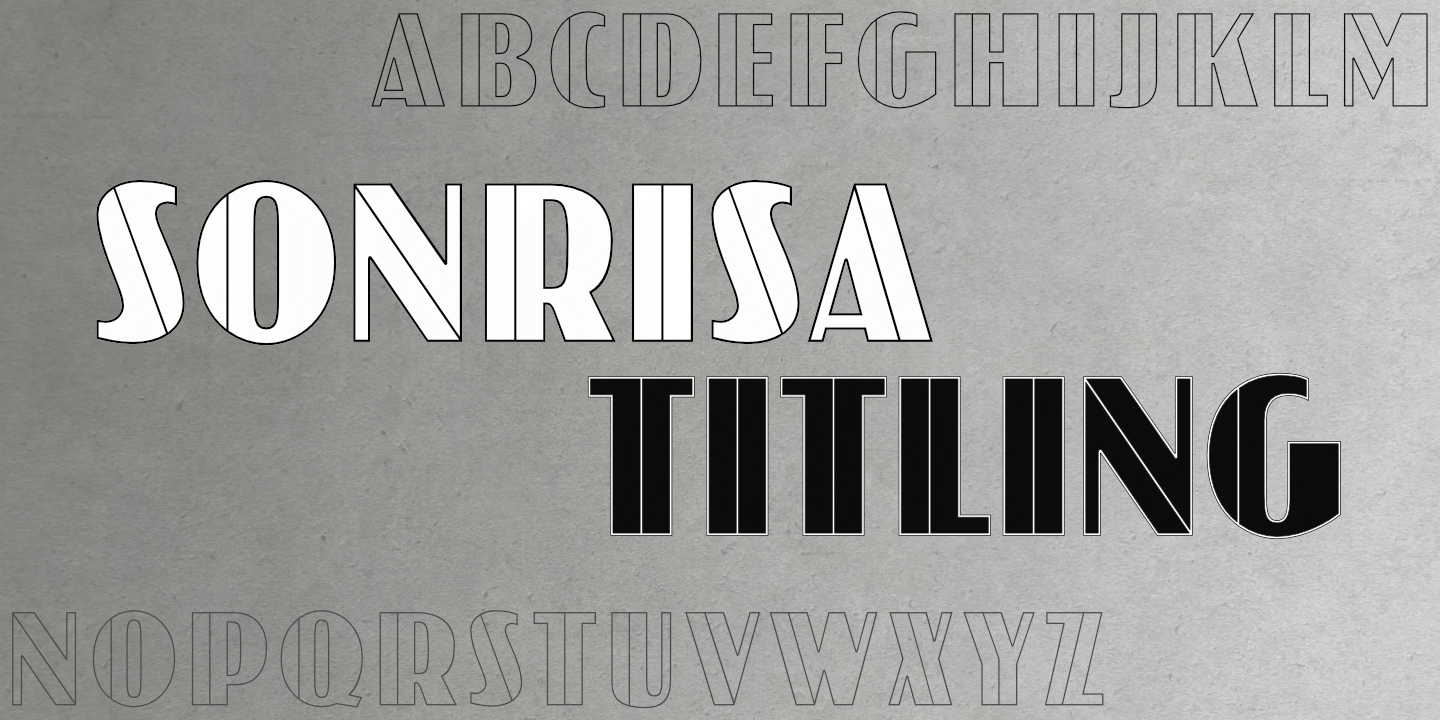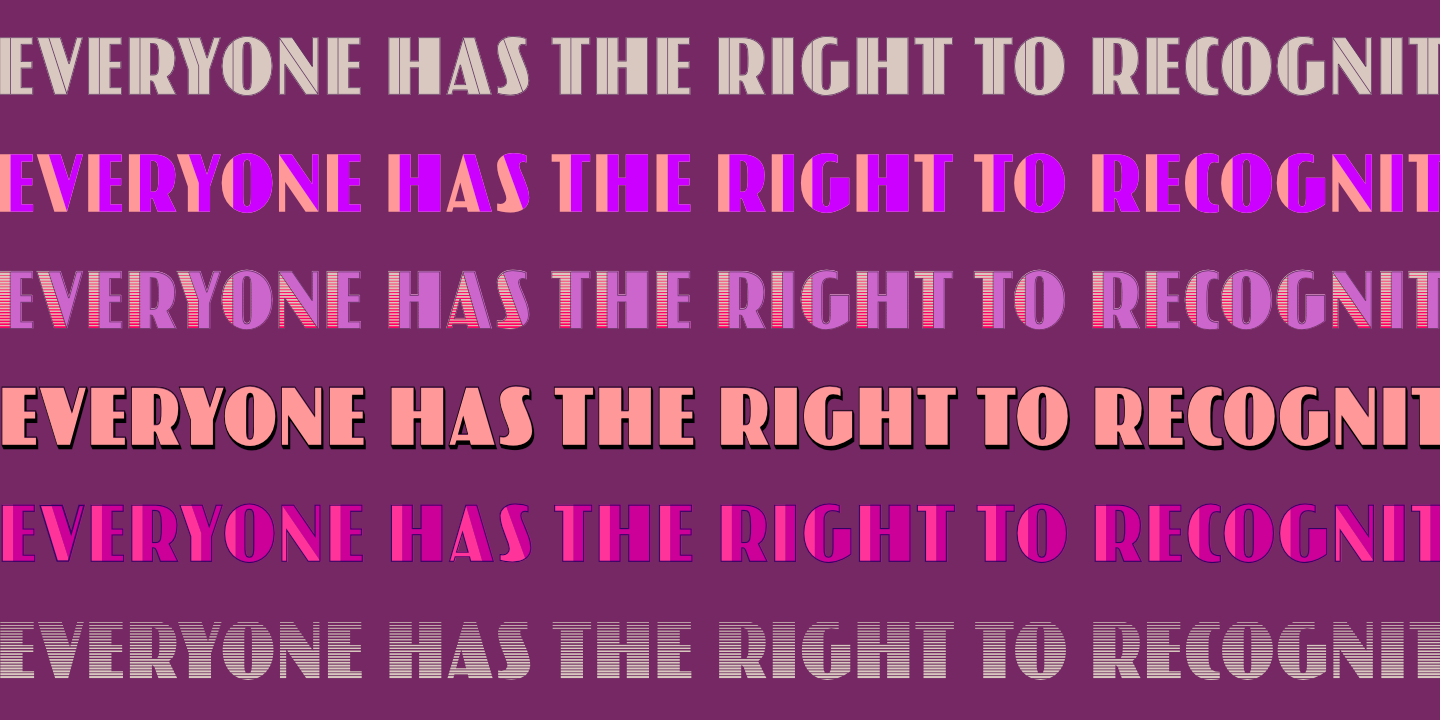
Sonrisa Condensed Pro Titling: Basic Latin alphabet, uppercase layered with lowercase. See Glyphs for details.
The Sonrisa Condensed Pro family is available in eight styles and supports Latin, Greek, and Cyrillic.
With layering, Sonrisa Condensed Pro Titling offers many possibilities. blank